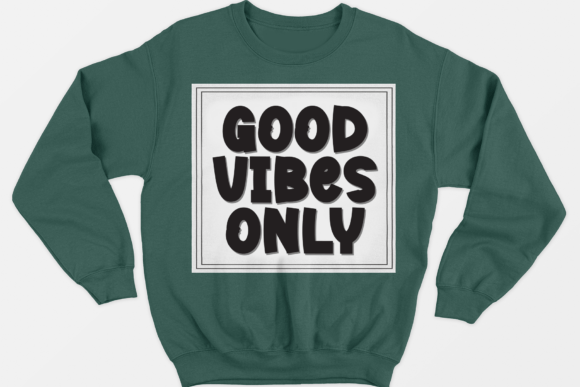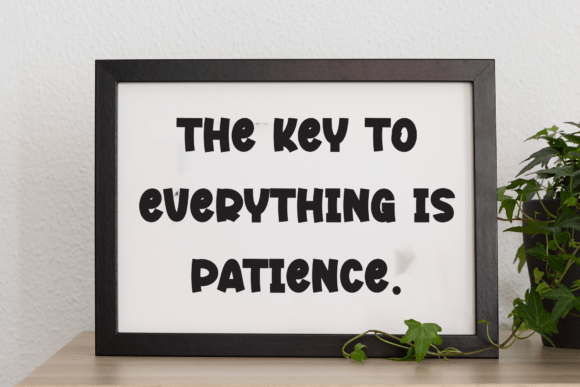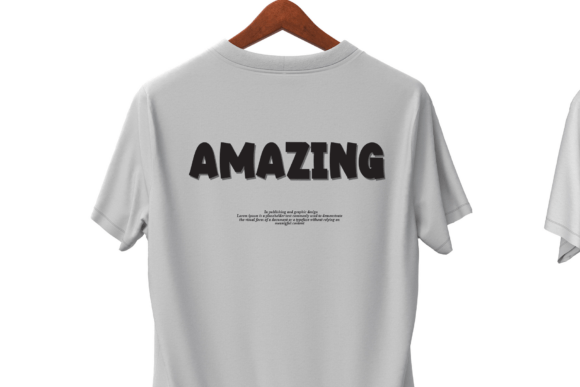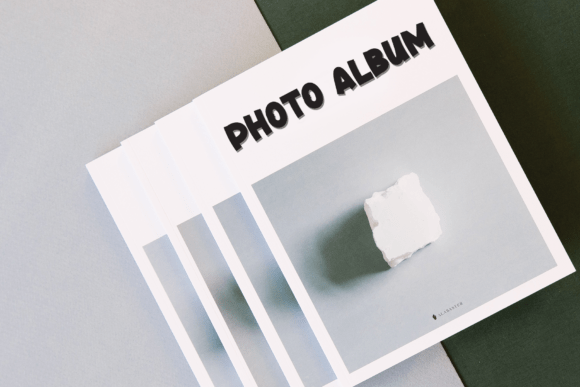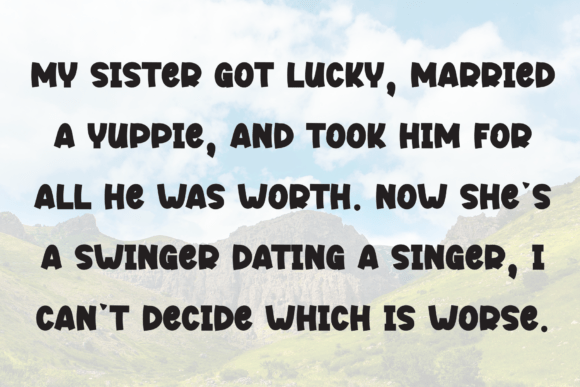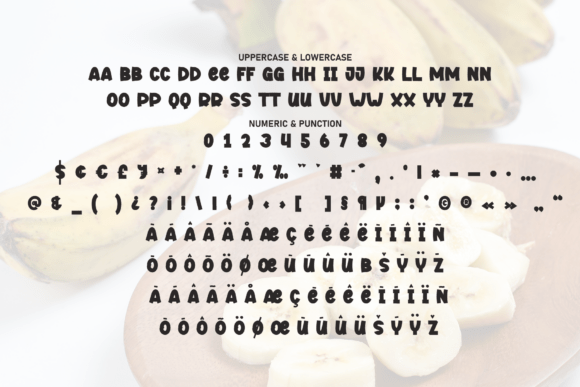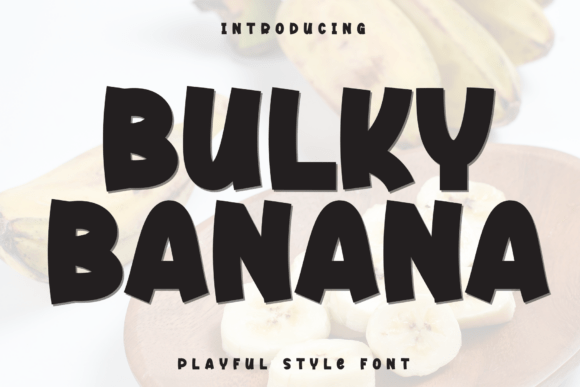
Bulky Banana Font: Adding a Touch of Whimsy to Your Designs
Are you looking for a font that can add a dash of joy and friendliness to your designs? Look no further than the Bulky Banana Font. This delightful display font is perfect for crafters and designers who want to create beautiful and eye-catching projects that exude warmth and playfulness. In this article, we’ll dive into the world of Bulky Banana Font and explore its features, uses, and benefits.
The Charm of Bulky Banana Font
The Bulky Banana Font is a heartwarming display font that is sure to capture the essence of joy and friendliness. Its sweet and playful demeanor makes it perfect for a variety of design projects, from wedding invites to heartfelt cards, and even social media graphics. This font has been artfully crafted to add an enchanting flair to your creative endeavors, making it a must-have for designers and crafters.
Features of Bulky Banana Font
The Bulky Banana Font boasts a range of features that make it a standout in the world of typography. Some of its key features include:
- Unique and Playful Design: The Bulky Banana Font has a distinctive and playful design that is sure to grab attention.
- High-Quality Typography: This font has been carefully crafted to ensure that it is clear and legible, even at small sizes.
- Versatile: The Bulky Banana Font can be used for a wide range of design projects, from digital to print.
Uses of Bulky Banana Font
The Bulky Banana Font is a versatile font that can be used for a wide range of design projects. Some of its most popular uses include:
- Wedding Invites: The Bulky Banana Font is perfect for creating beautiful and eye-catching wedding invites that set the tone for a special day.
- Heartfelt Cards: This font is ideal for creating heartfelt cards for special occasions, such as birthdays, anniversaries, and holidays.
- Social Media Graphics: The Bulky Banana Font can be used to create engaging and eye-catching social media graphics that are sure to grab attention.
- Branding and Packaging: This font can be used for branding and packaging projects, adding a touch of whimsy and personality to your designs.
Benefits of Using Bulky Banana Font
The Bulky Banana Font offers a range of benefits for designers and crafters. Some of its key benefits include:
- Adds a Touch of Whimsy: The Bulky Banana Font adds a touch of whimsy and playfulness to your designs, making them stand out from the crowd.
- Evokes Emotion: This font has a warm and friendly feel that evokes emotion and creates a connection with your audience.
- Easy to Read: The Bulky Banana Font is clear and legible, making it easy to read and understand.
- Versatile: This font can be used for a wide range of design projects, making it a valuable addition to your font library.
Tips for Using Bulky Banana Font
Here are some tips for getting the most out of the Bulky Banana Font:
- Use it for Headings: The Bulky Banana Font is perfect for headings and titles, where its playful and whimsical design can really shine.
- Pair it with Other Fonts: This font pairs well with other fonts, so don’t be afraid to experiment and find the perfect combination for your design.
- Experiment with Colors: The Bulky Banana Font looks great in a range of colors, so don’t be afraid to experiment and find the perfect hue for your design.
The Bulky Banana Font is a delightful display font that is sure to add a touch of whimsy and playfulness to your designs. With its unique and playful design, high-quality typography, and versatility, this font is perfect for designers and crafters who want to create beautiful and eye-catching projects. Whether you’re creating wedding invites, heartfelt cards, or social media graphics, the Bulky Banana Font is a great choice. So why not give it a try and see the difference it can make in your designs?